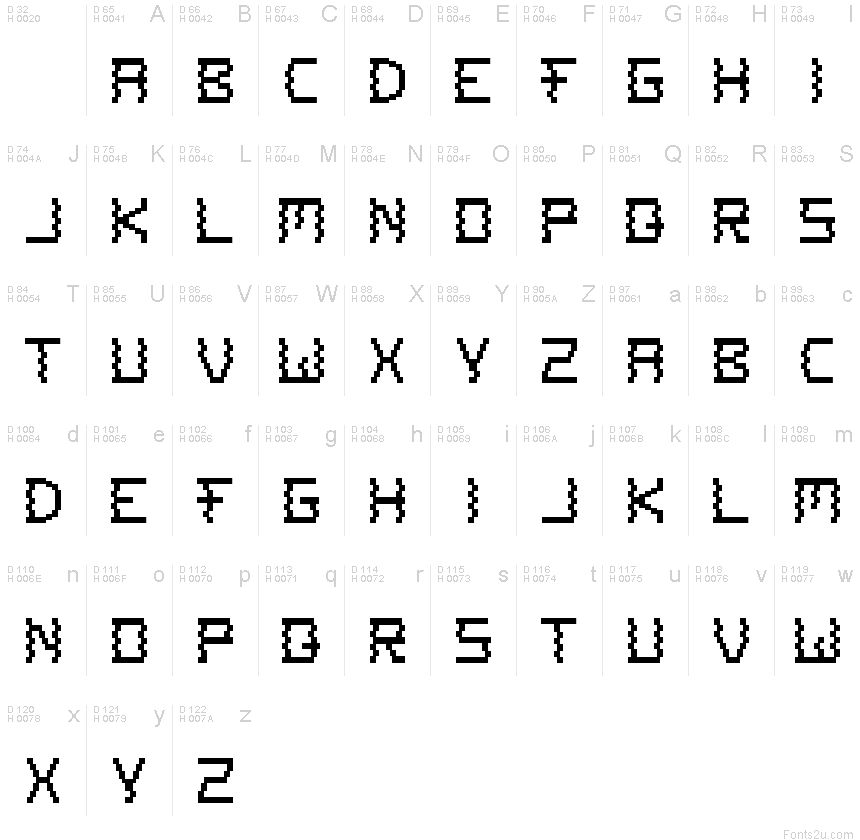
A to Z
A to Z font by Dieter Schumacher with teeth ache is a free bitmap pixelated typeface with a wonderfully raw, grid-locked rhythm. Each letter is carved from tight vertical stacks of square pixels, creating a tall, almost totem-like profile that feels straight out of a hacked arcade cabinet or a glitchy LED sign. The result is punchy, mechanical, and unmistakably digital—more like chiseled circuitry than handwriting.
This free font shines on retro game interfaces, techno or chiptune album covers, sci‑fi posters, experimental logos, and bold titles for streams or YouTube thumbnails. Using A to Z at larger sizes keeps every jagged pixel crisp, while smaller captions can sit nicely in a clean geometric sans for contrast. Think of it as your go‑to voice when you want text to look like it’s buzzing on a low‑res screen.
designed by Dieter Schumacher with teeth ache